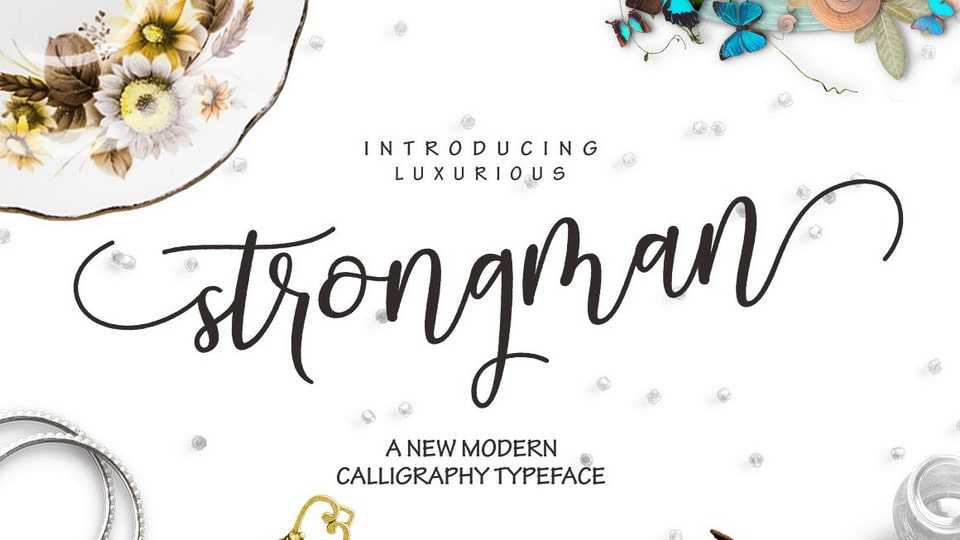
Download Strongman Script font, a lovely, modern calligraphic typeface. It features dynamic and pretty swashes and can be used for many purposes, such as titles, signatures, logos.